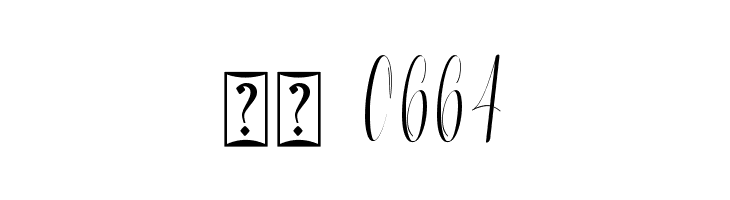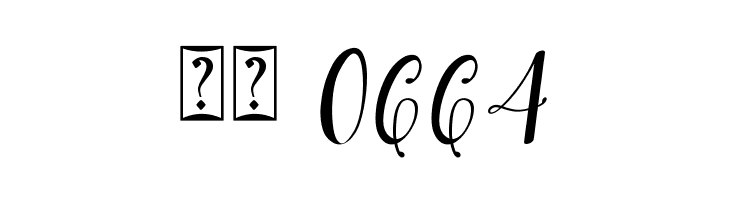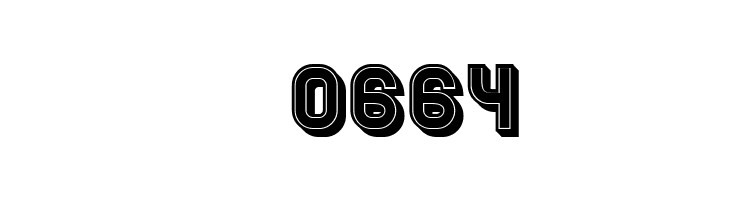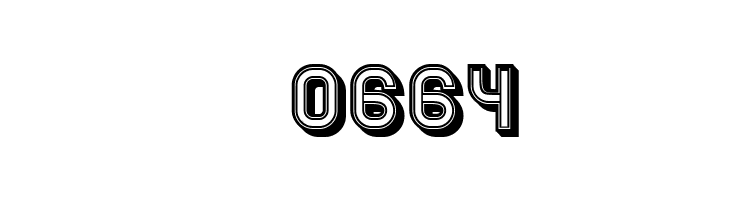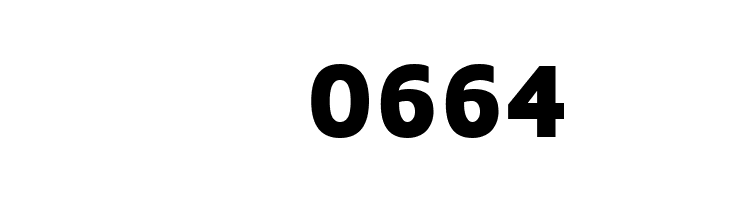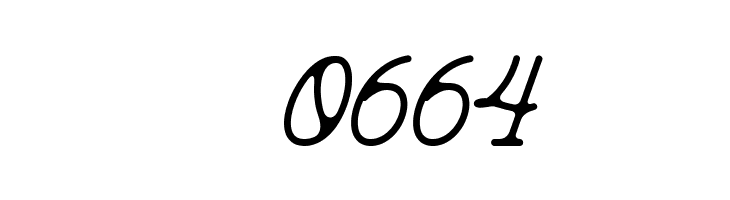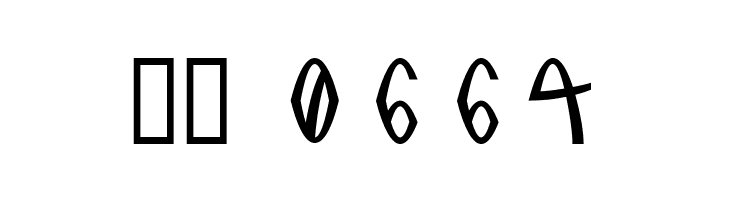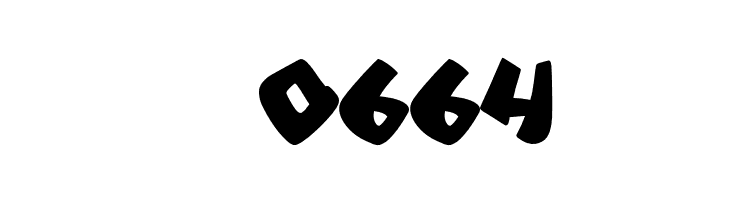
A playful, handwritten-style font with rounded edges and consistent stroke thickness.
A sophisticated script font with elegant loops and swashes, ideal for formal and decorative use.
A clean, modern sans-serif font with balanced proportions and a versatile style.
A bold, vintage-inspired font with strong, angular serifs and uniform height.
A bold, slab serif font with a strong, modern presence.
A playful and elegant handwritten script font with flowing, connected letters.
A display font composed of illustrated mask icons for each character.
An elegant script font with flowing, ornate swashes and high contrast strokes.
A bold, modern sans-serif font with clean lines and geometric shapes.
A bold, modern sans-serif font with clean lines and strong presence.
A bold, modern sans-serif font with clean lines and strong legibility.
A modern, geometric sans-serif font with a clean and balanced design.
A modern, geometric sans-serif font with balanced proportions and uniform stroke width.
A modern, geometric sans-serif font with a clean and professional look.
A bold, cartoonish font with thick, dynamic characters.
The image contains decorative patterns, not a valid font.
A playful and elegant script font with a handwritten, cursive style.
A graceful calligraphic script font with elegant curves and dynamic flow.
A bold, geometric font with a futuristic, industrial style.
A bold, geometric font with a distinct outline and high contrast, ideal for impactful designs.
A bold, three-dimensional font with a vintage, decorative style.
An elegant script font with flowing, interconnected letters and intricate flourishes.
A sophisticated script font with flowing, cursive letterforms and elegant flourishes.
A flowing, cursive script font with elegant, sweeping curves.